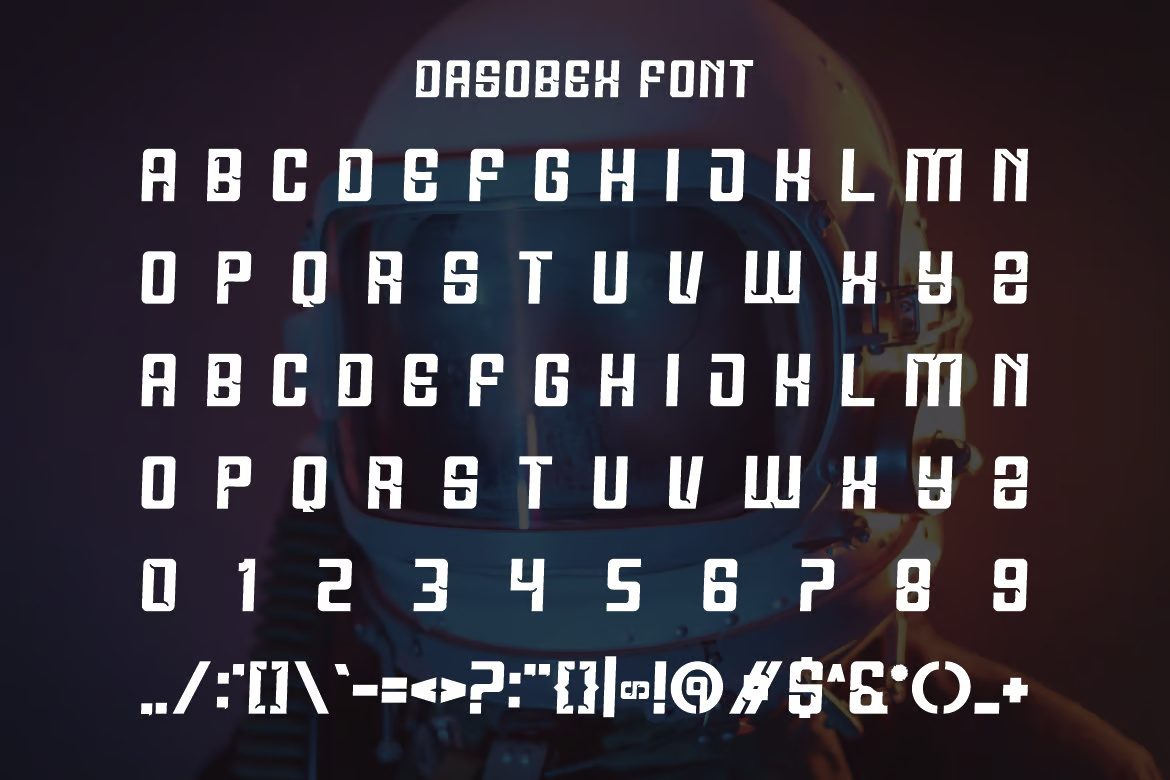
Dasobex Font is a bold and authentic display typeface, perfect for a variety of creative projects. Whether you’re designing logos, posters, or branding materials, this font adds a unique touch.
Dasobex – Bold Display Sans-Serif Font